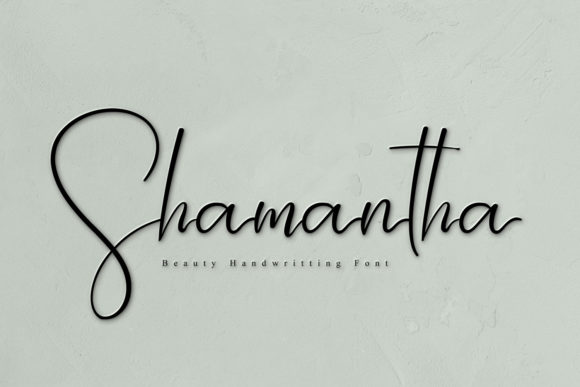
Journey into the mesmerizing realm of Shamantha Font, a script font that captivates the essence of elegance and charm. As you delve into its intricate letterforms, you'll discover a symphony of grace and beauty, making it the perfect choice for a wide range of creative endeavors.
Crafted with the utmost care and attention to detail, Shamantha Font exudes a sense of luxury and sophistication, making it the ideal companion for those seeking to add a touch of class to their designs. Whether you're an aspiring artist, a seasoned graphic designer, or simply someone who appreciates the art of typography, Shamantha Font will awaken your creativity and transport you to a world of endless possibilities.
With its sweeping curves and delicate strokes, Shamantha Font dances across the page like a ballerina, captivating the eyes of your audience. Its graceful lines and harmonious proportions create a sense of balance and elegance that will leave a lasting impression. Unleash your inner artist and let the beauty of Shamantha Font elevate your projects to new heights.
Dive into the world of Shamantha Font and embark on a journey of self-expression and creativity. Let your imagination soar as you craft stunning logos, eye-catching posters, and captivating social media designs that will captivate and inspire. Shamantha Font is the key to unlocking a treasure trove of creative possibilities.
Indulge in the exquisite beauty of Shamantha Font and awaken the storyteller within you. Its versatility knows no bounds, making it the perfect choice for crafting enchanting invitations, heartfelt greeting cards, and captivating book covers. Let your words dance across the page, carried by the elegance of Shamantha Font, and create a lasting impact that will leave your readers spellbound.